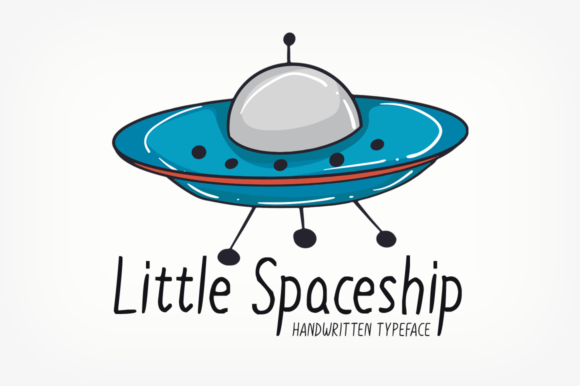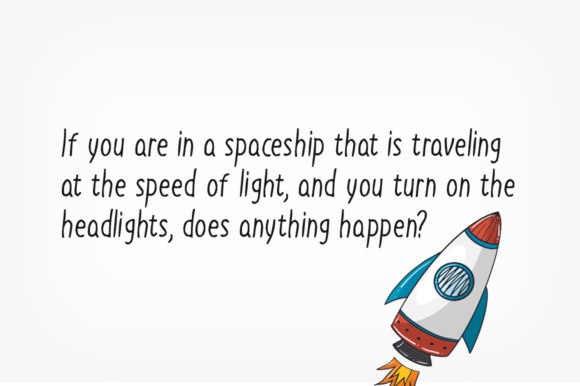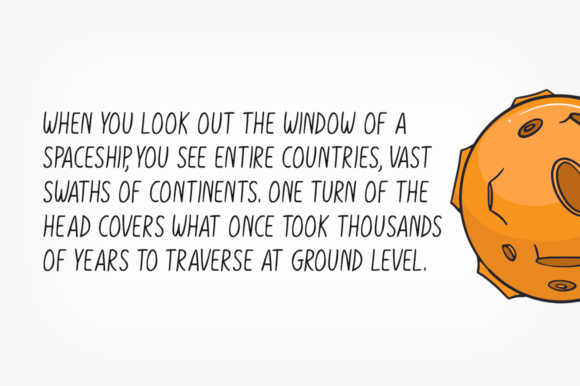
Little Spaceship Font
About Little Spaceship Font
Little Spaceship is a simple and neat handwritten font. Its natural and unique style makes it incredibly fitting to a large pool of designs. The only limit is your imagination!